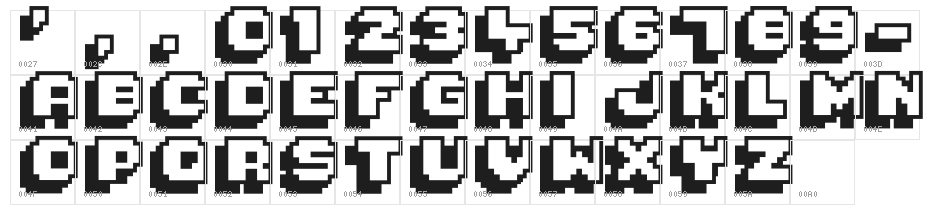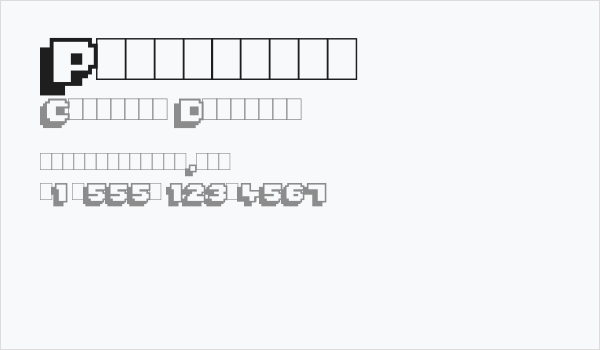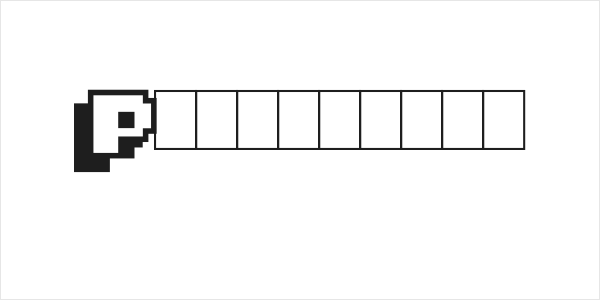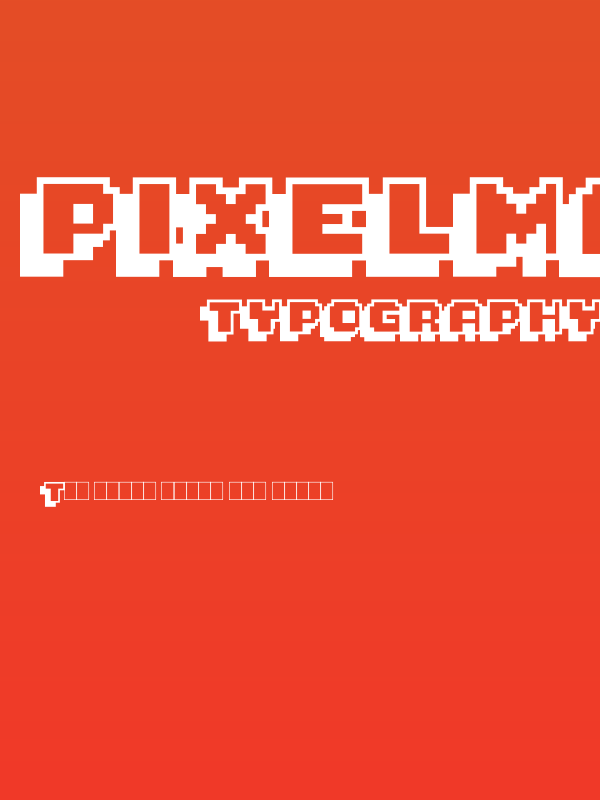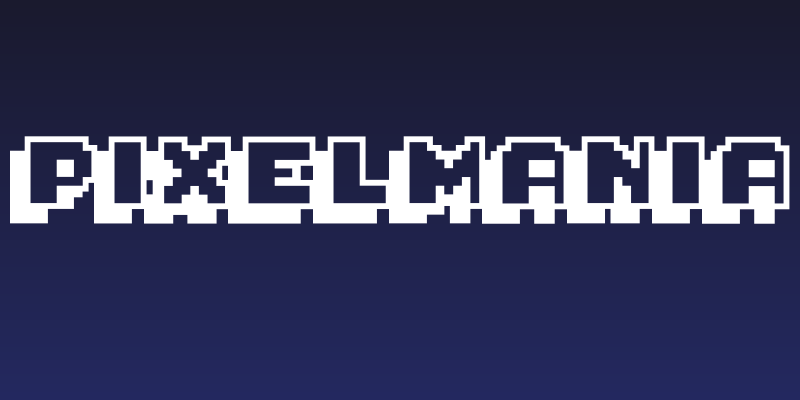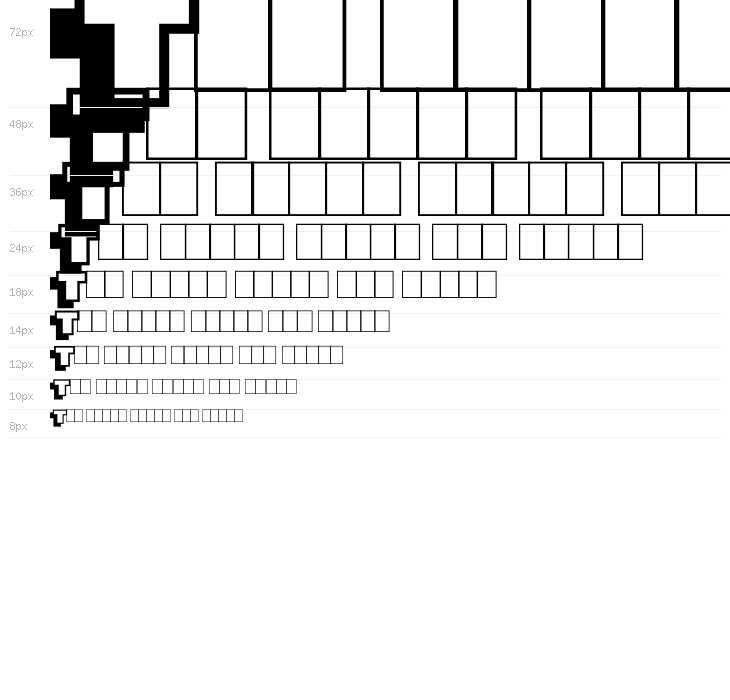
Pixelmania Font
Pixelmania Description
This font embodies a bold, pixelated style reminiscent of classic video game graphics. Each character is constructed with a blocky, pixelated design, giving it a retro and digital aesthetic. The uppercase and lowercase letters maintain a consistent height, contributing to a uniform appearance. The numbers and special characters follow the same pixelated theme, ensuring cohesion across all glyphs. The font's thick strokes and sharp edges create a strong visual impact, making it ideal for attention-grabbing designs. Its nostalgic appeal is perfect for projects that aim to evoke a sense of vintage gaming or digital art.
| Overall Style | Vintage |
| Proposed Projects | Ideal for video game titles, retro-themed posters, digital art projects, and any design needing a nostalgic, pixelated look. |